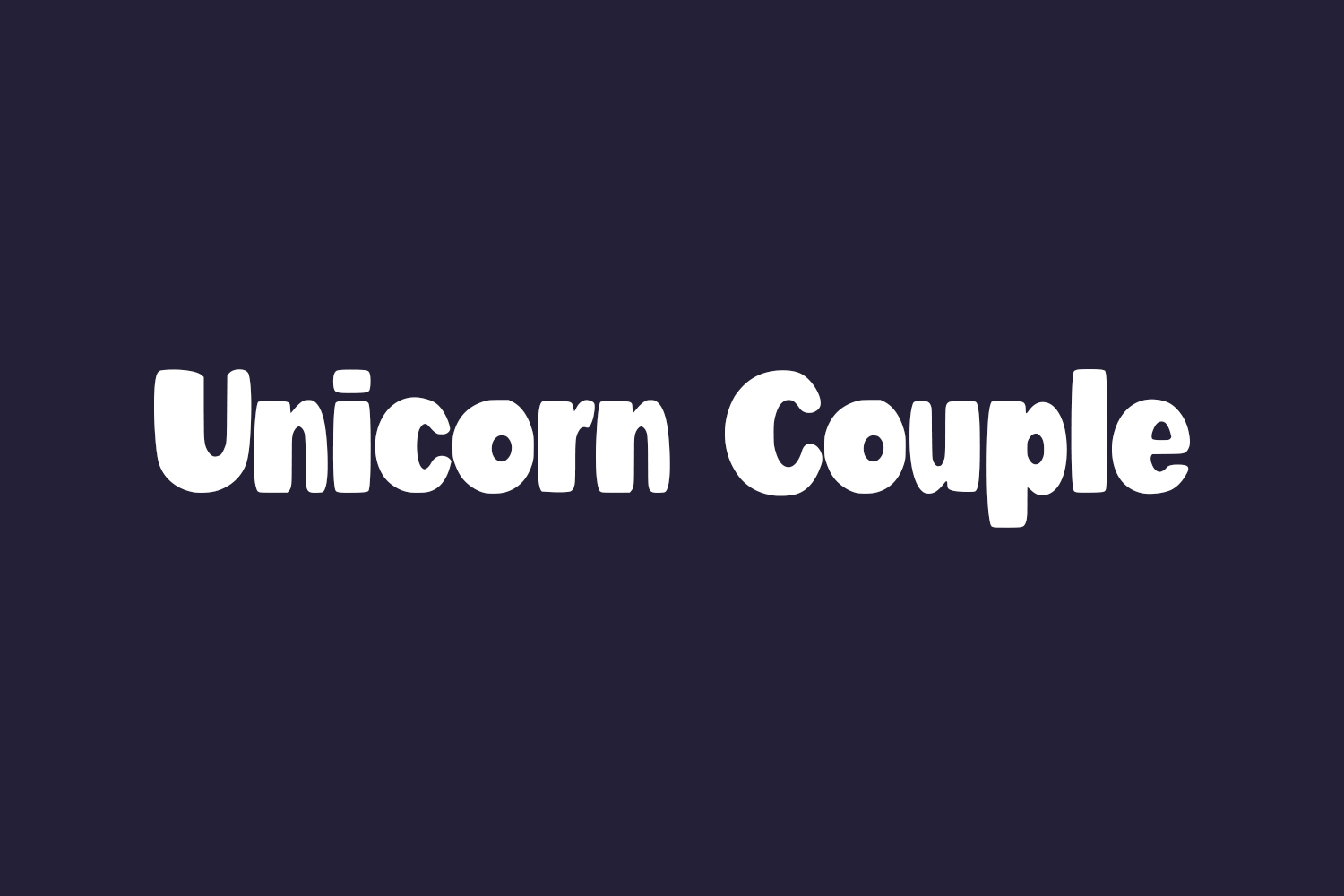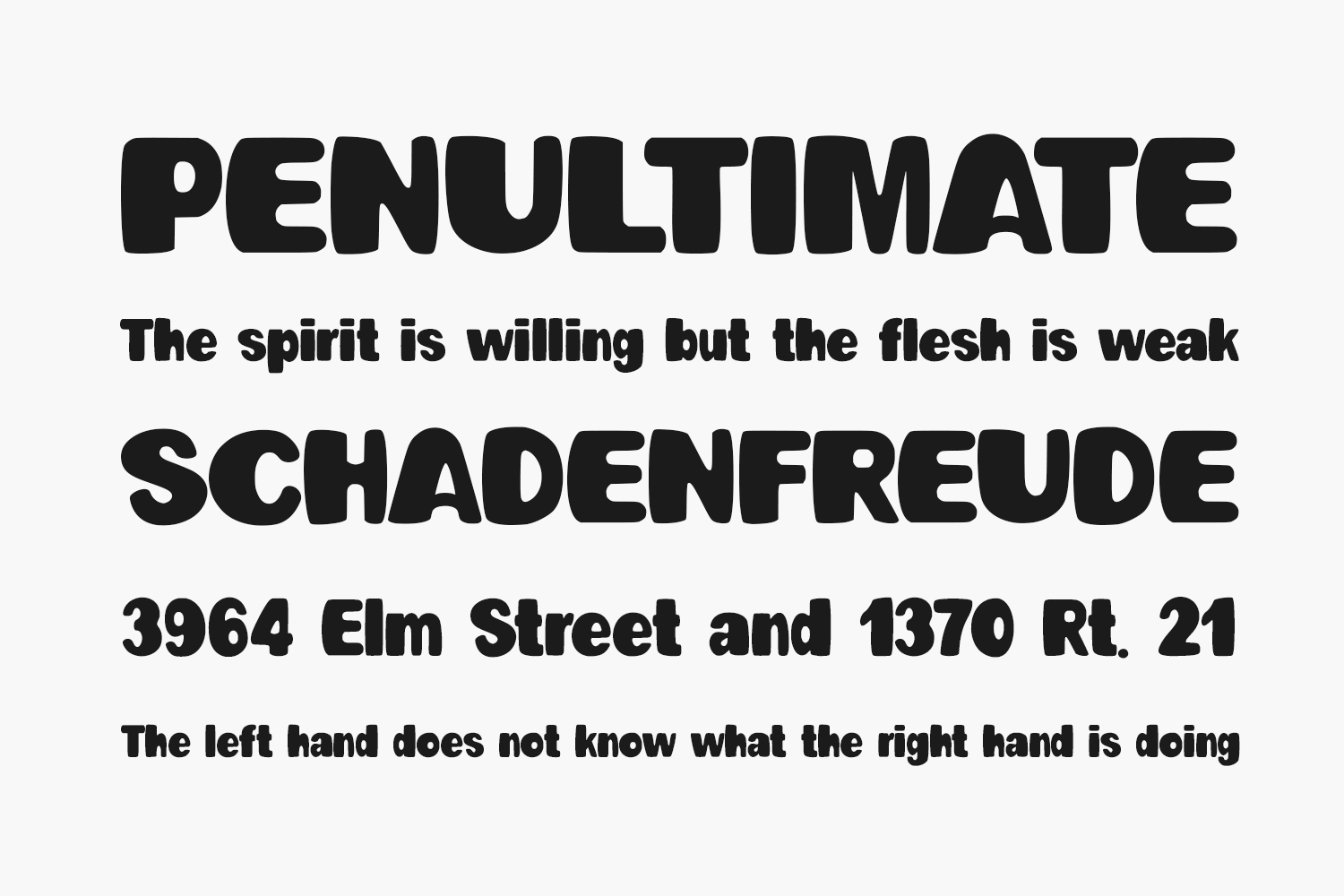
Unicorn Couple Free Font is a cute, fun, and chunky display font. Its unique shape is very suitable for game designs, animation, product packaging, posters, sports, music and much more! It can elevate the look of almost any of your beautiful creations.
Designed by Stefani Letter